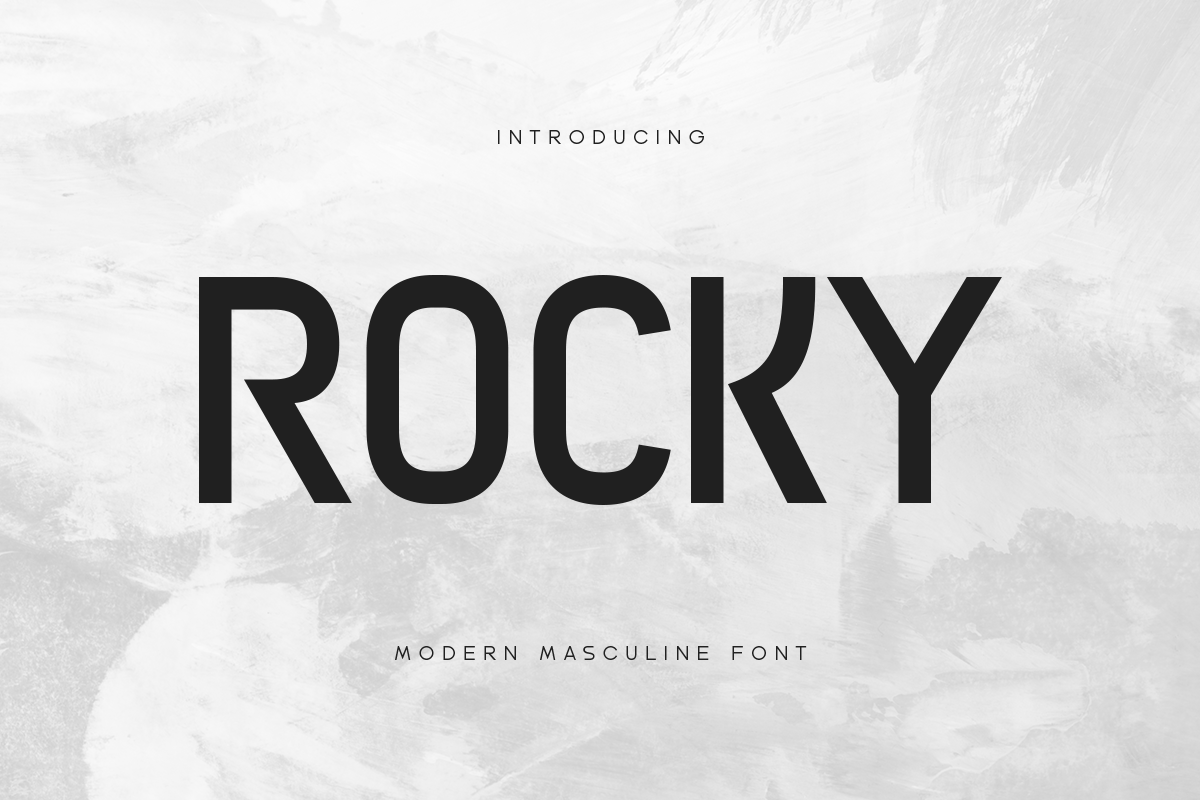
Rocky - Modern Masculine Font
Rocky delivers bold, masculine typography perfect for brands that need to make a powerful statement. This modern sans serif font is specially crafted for branding, titles, and standout typography that demands attention. With extra alternative styles, Rocky makes your designs more memorable and impactful. Rocky excels in sport, technology, action, and fighting themes, bringing a bold action style with contemporary appeal. Whether you're creating athletic branding, tech company logos, or high-ener...